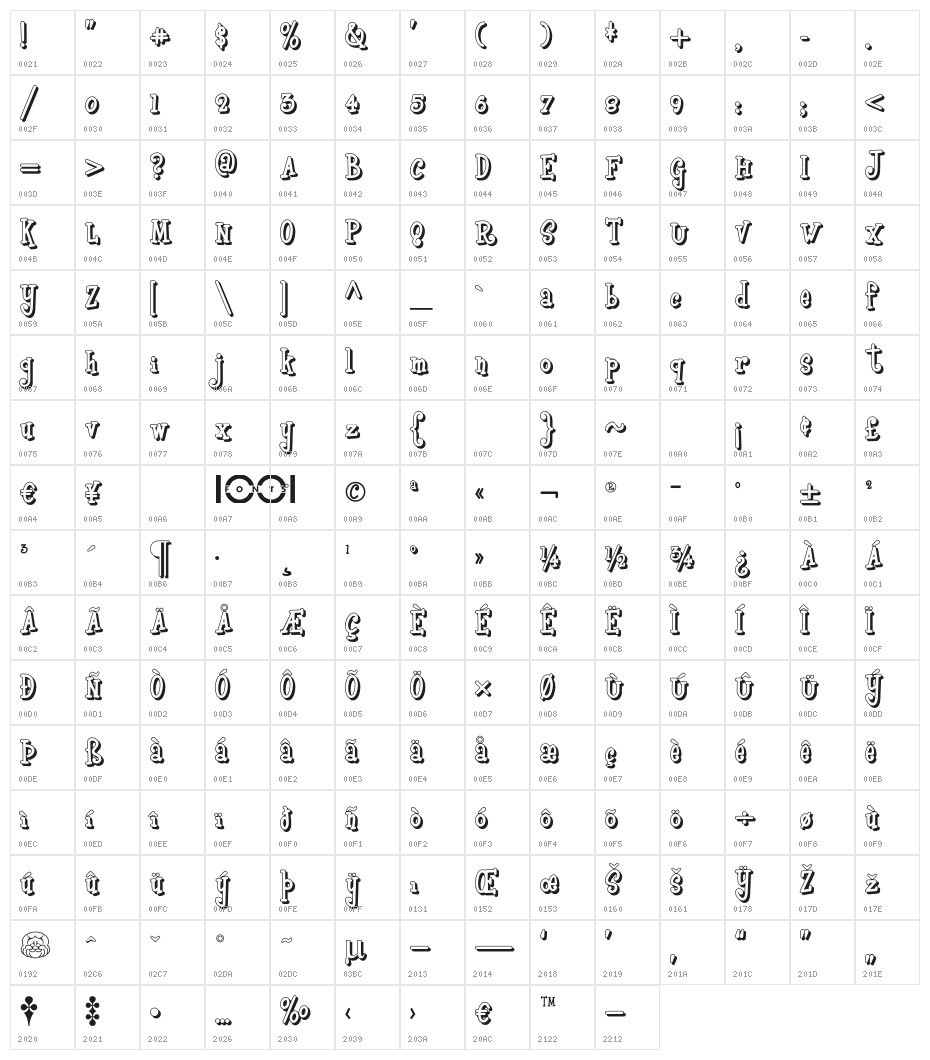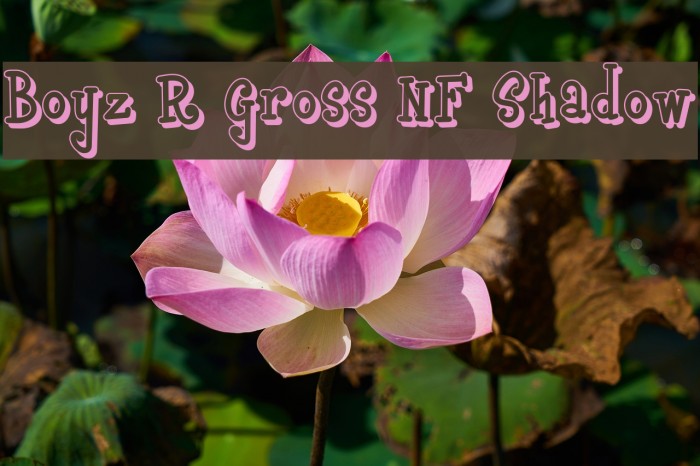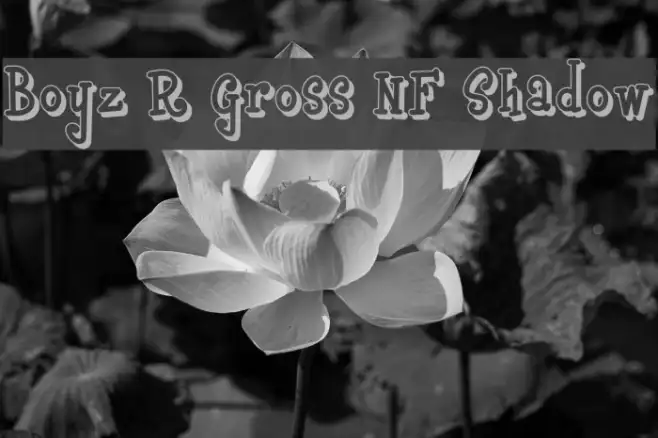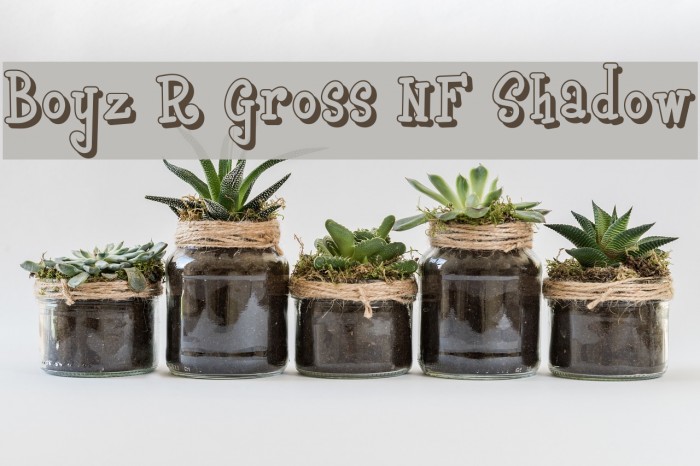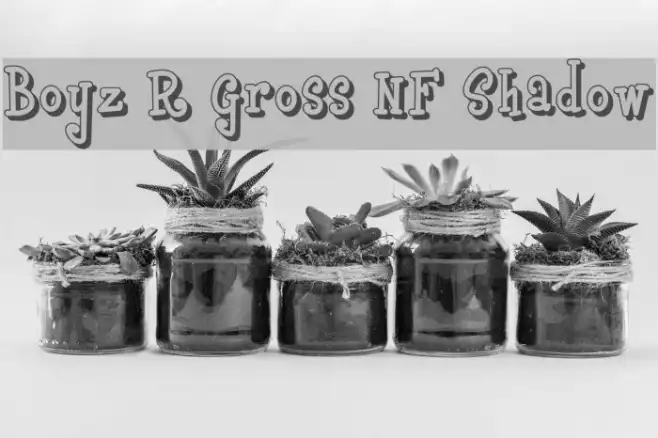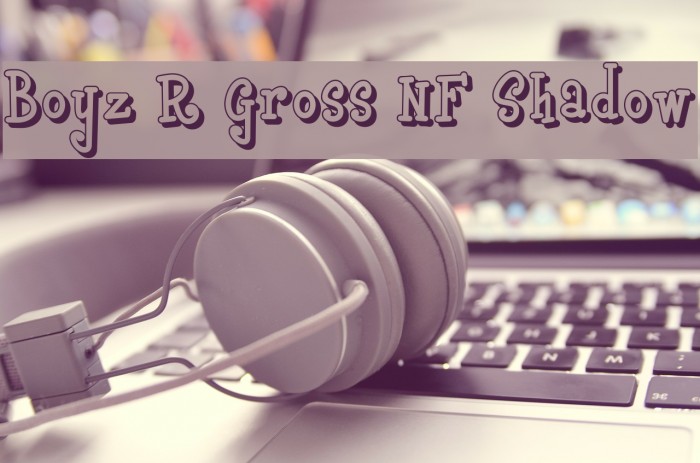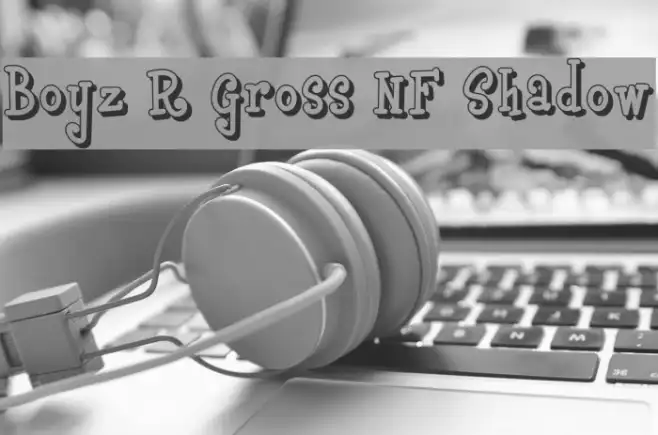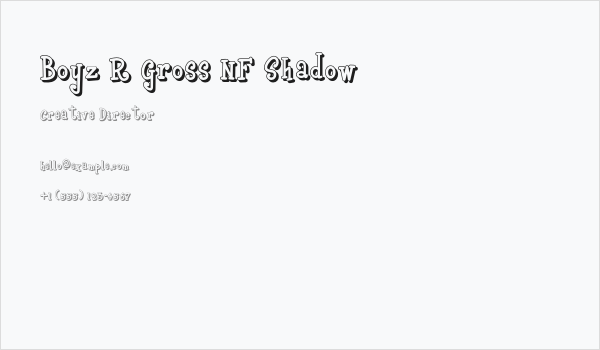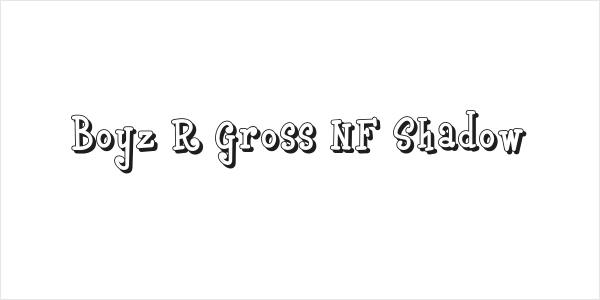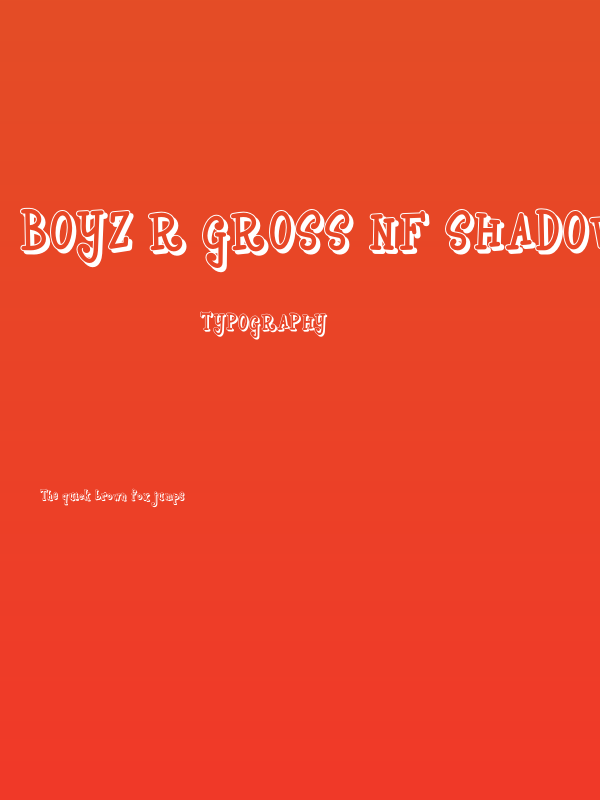
Boyz R Gross NF Shadow Font
Boyz R Gross NF Shadow Description
This playful and bold font features a distinctive shadow effect that adds depth and dimension to each character. The letters are rounded and slightly whimsical, with a cartoonish flair that makes them stand out. The uppercase and lowercase letters maintain a consistent style, with exaggerated serifs and a slightly uneven baseline that enhances its quirky appeal. The numbers and special characters follow the same design principles, ensuring a cohesive look across all glyphs. This font's unique shadowing gives it a three-dimensional appearance, making it ideal for eye-catching designs.
| Overall Style | Playful, Cartoonish, Decorative |
| Use Case | Headlines, Posters, Children's Books |
| Proposed Projects | Perfect for children's book covers, playful posters, comic strips, and any project requiring a fun and engaging typeface. |